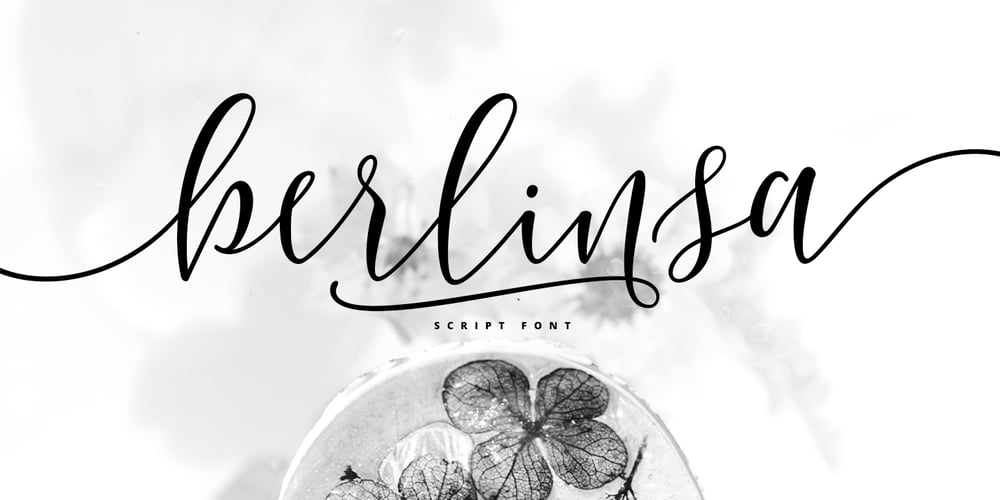
Berlinsa Font Family was designed by Juni Fadil Putra and published by FadeLine Studio. Berlinsa contains 1 styles and family package options. Berlinsa is a modern script font. It has smooth strokes to give character of a simple, sweet and realistic handwritten style.Berlinsa is perfect for logos, branding projects, homeware designs, product packaging, mugs, quotes, posters, shopping bags, logo’s, t-shirts, book covers, name card, invitation cards, greeting cards, and all your other lovely projects.